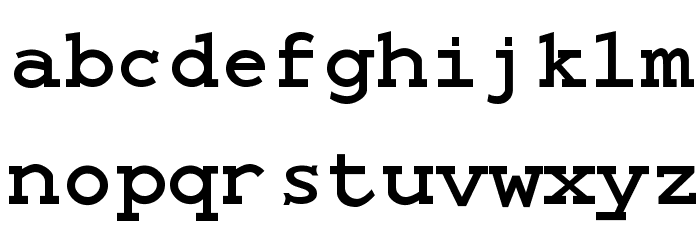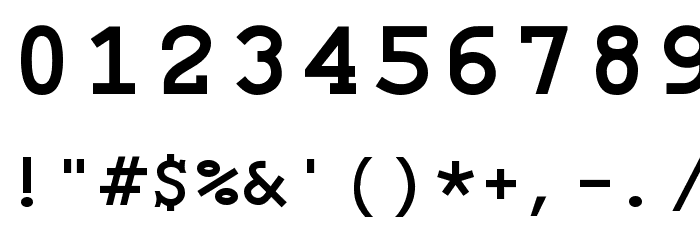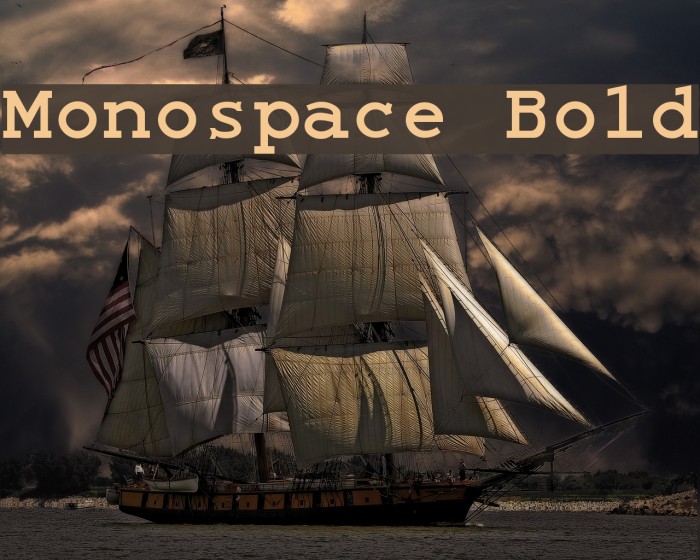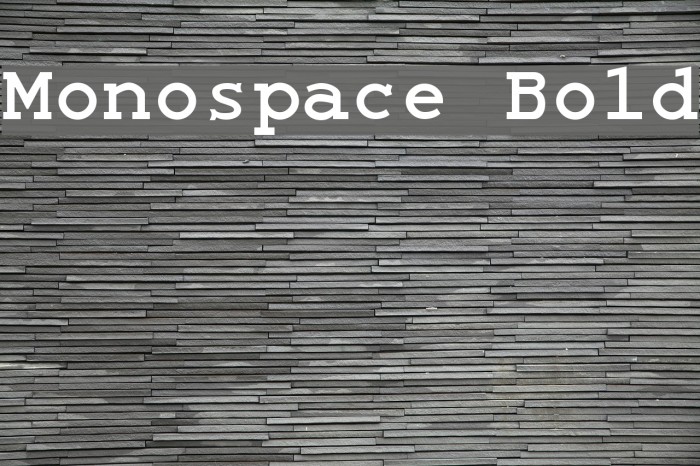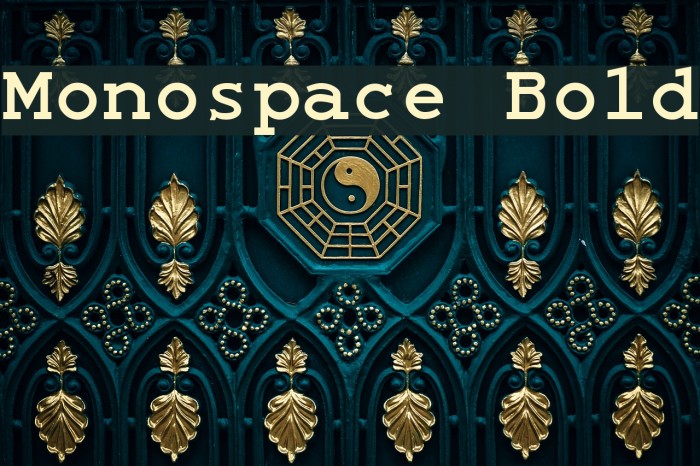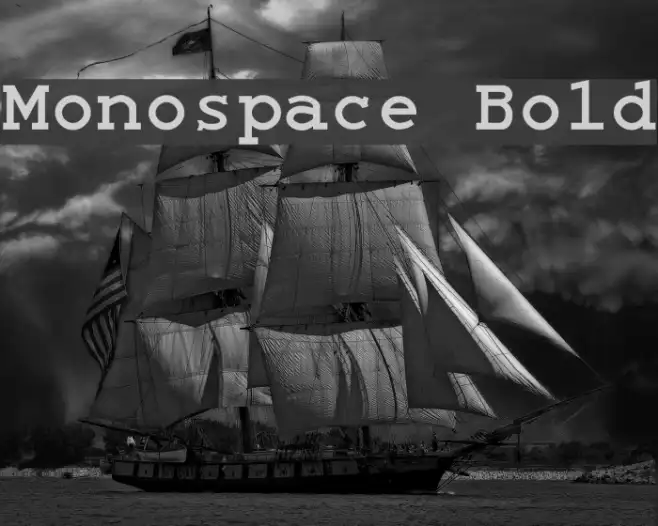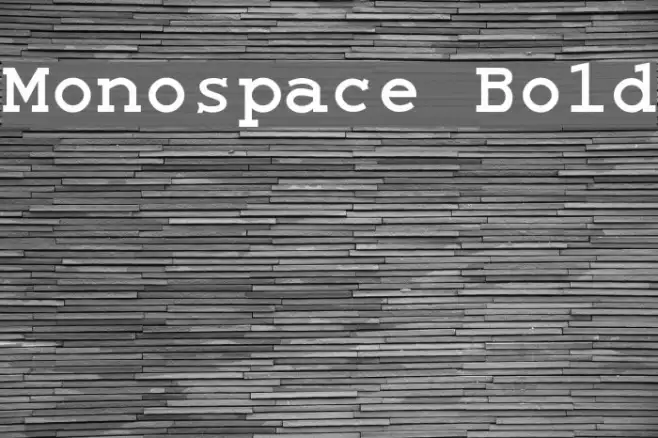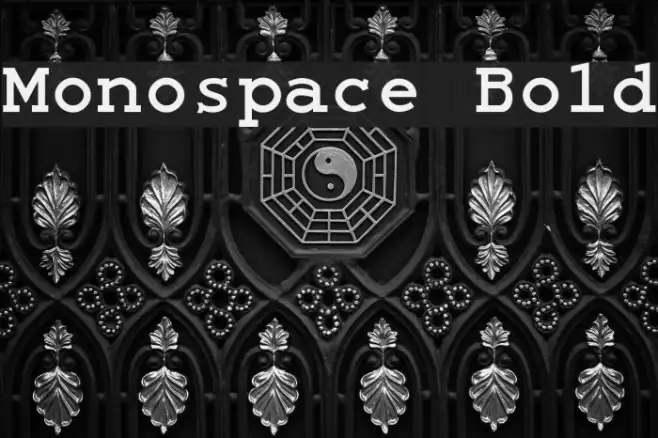
Monospace Bold Font
This typeface is a bold, monospaced font characterized by its uniform character width and strong presence. Each letter and symbol occupies the same horizontal space, making it ideal for coding and tabular data. The bold weight enhances readability and gives a robust, impactful appearance. The design is clean and straightforward, with minimal contrast between thick and thin strokes, maintaining a consistent visual weight throughout. The font includes a full set of uppercase and lowercase letters, numerals, and a variety of special characters, ensuring versatility for different applications.
A bold, monospaced font with uniform character width and strong readability.
- Proposed Projects: Ideal for coding environments, technical documentation, data tables, and any project requiring precise alignment of text.
- Use Case: Coding, Technical documentation, Data tables